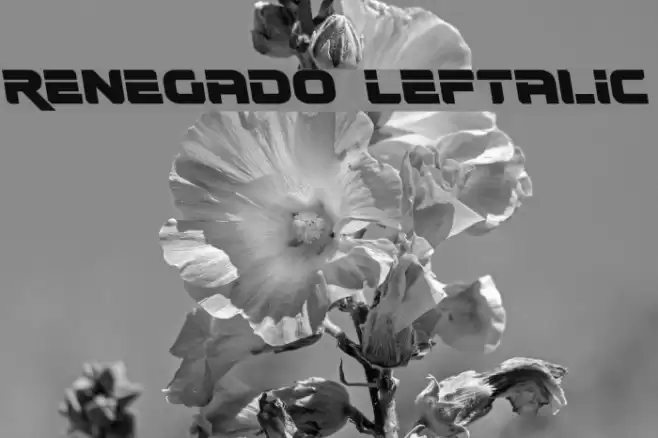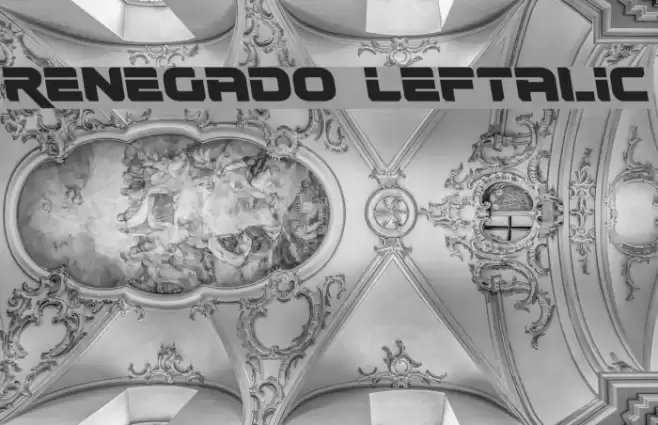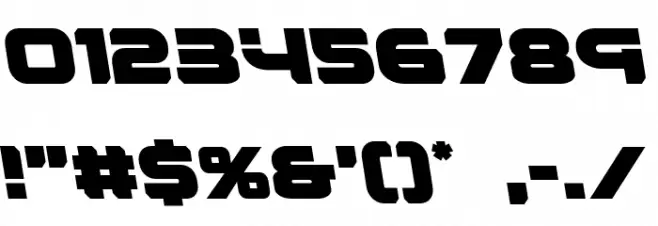
Renegado Leftalic Font
Renegado Leftalic Description
This font features a bold, futuristic design with a distinct slant to the left, giving it a dynamic and forward-moving appearance. The characters are wide and blocky, with sharp angles and a strong presence. The uppercase and lowercase letters maintain a consistent style, with the lowercase being slightly smaller but equally impactful. Numbers and special characters follow the same bold and angular design, ensuring uniformity across all text elements. The font's unique style makes it ideal for projects that require a modern and edgy look.
A bold, futuristic font with a leftward slant and sharp, angular characters from Uncategorized fonts.
- Proposed Projects: Ideal for sci-fi themed designs, video game titles, tech branding, and modern posters.
- Width: Expanded